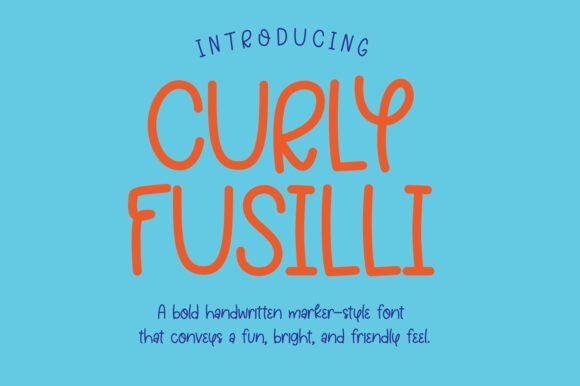
Introduction to Curly Fusilli Font
Curly Fusilli is a bold handwritten marker-style font that brings a fun, bright, and friendly vibe to your designs.
With its smooth curves and playful personality, this font is perfect for kids-themed projects, branding, social media graphics, posters, and more Designed to mimic natural marker handwriting, Curly Fusilli adds a casual and approachable touch while still standing out with its thick, rounded strokes.